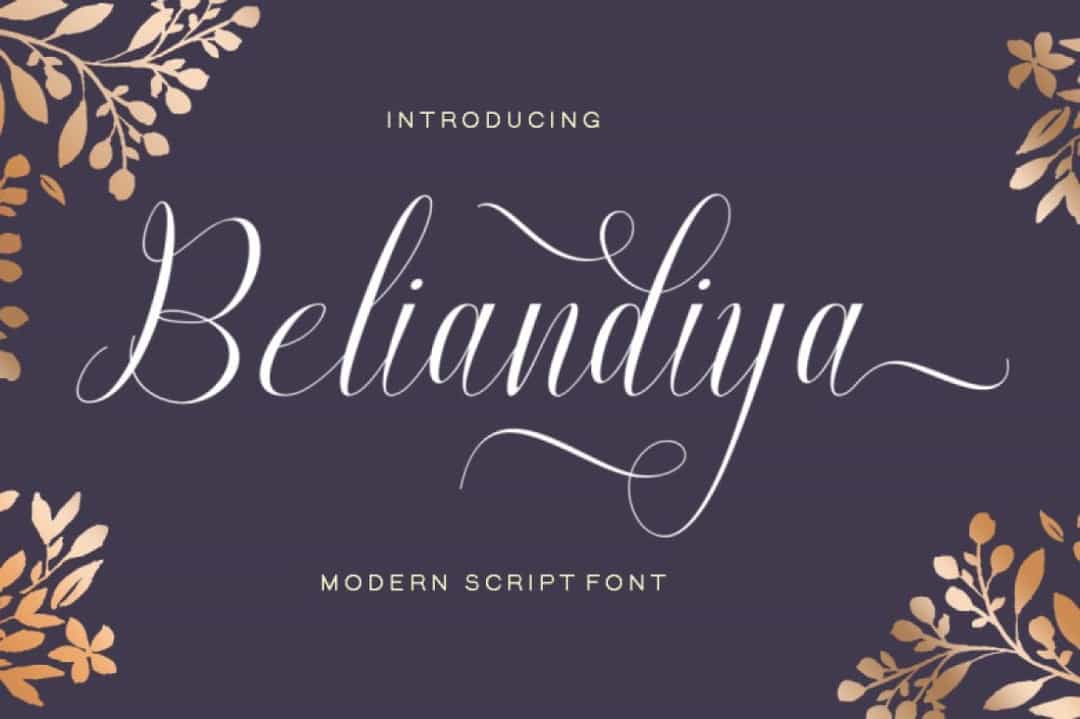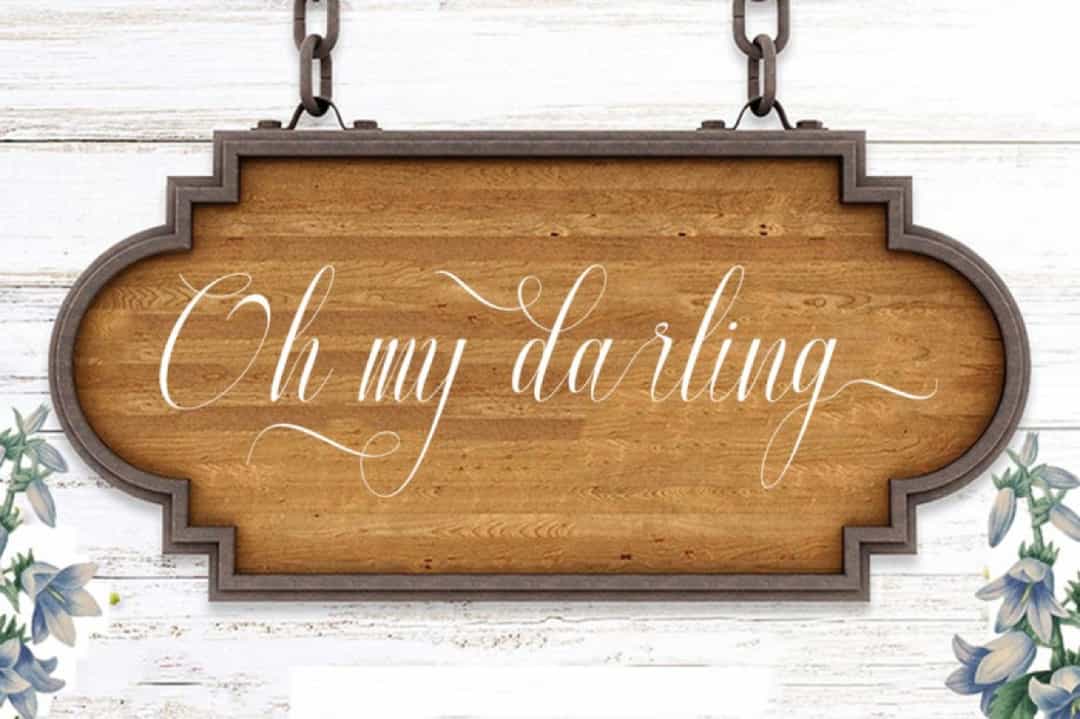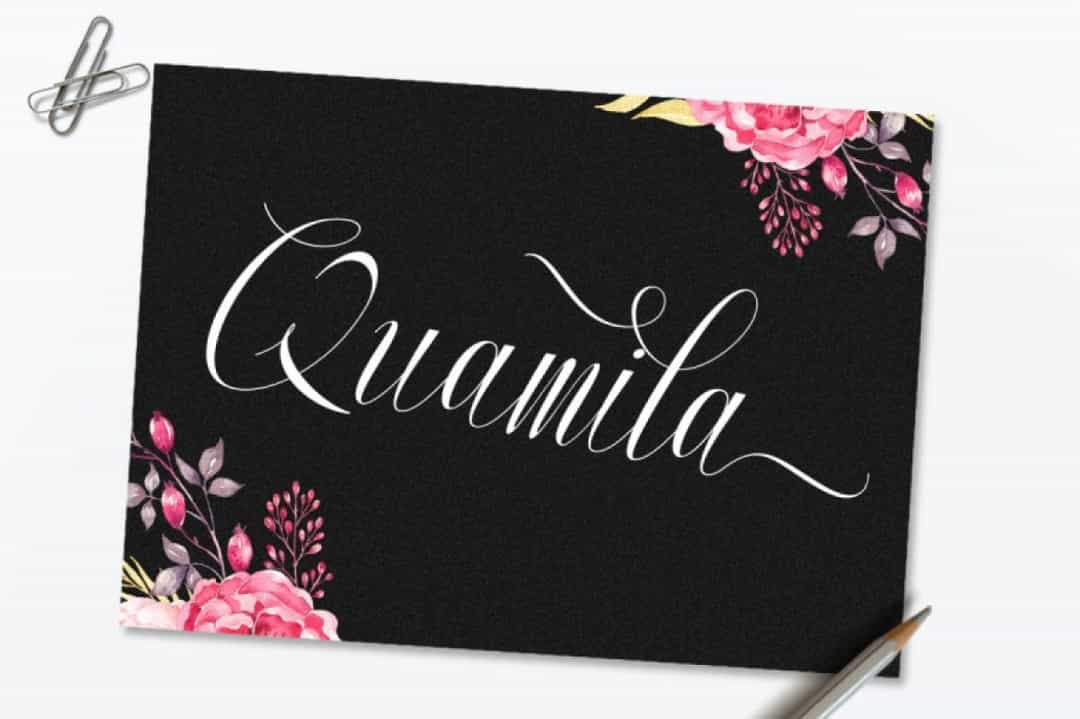
Beliandiya is an elegant modern script calligraphy font with an irregular baseline and feminine aesthetics, making it fashionable and feminine at once. Ideal for wedding invitations, thank-you cards, greeting cards, quotes logos business cards or anything else decorative you need it for, this elegant font makes a bold statement when used.